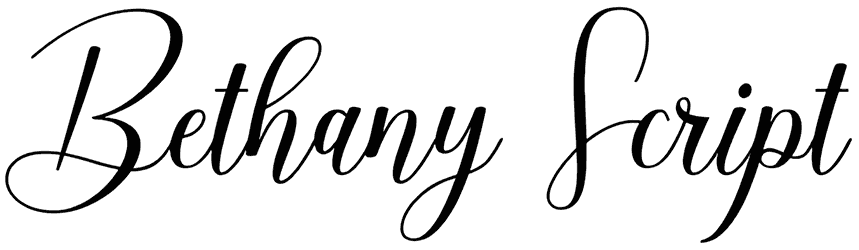
Bethany Script Font
Since the delicate style of the Bethany Script’s characters is very expressive, this script font can be seriously considered for greeting cards, wedding invitations, diplomas, or branding. This calligraphy font leads to a feeling of dynamic, precision, and sincerity. If you crave to have more fonts in the same category, don’t hesitate to visit our marvelous archive.